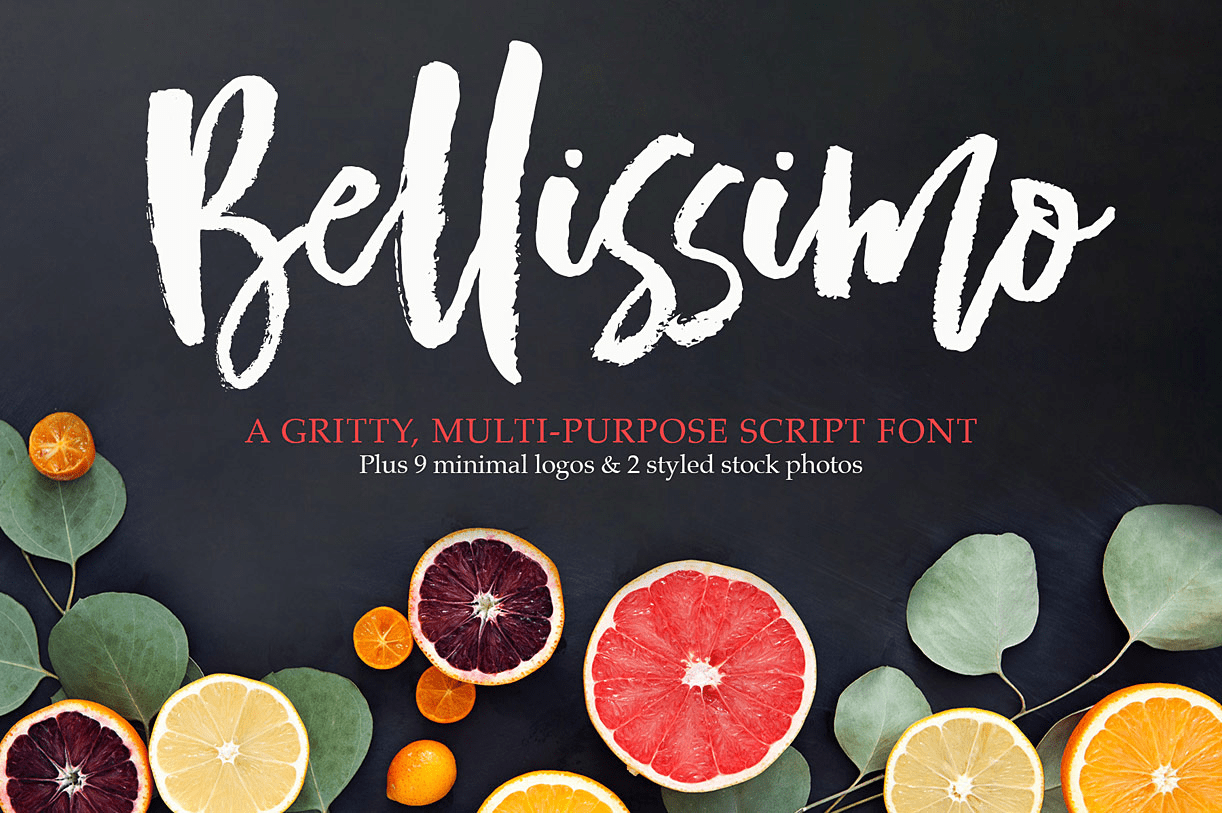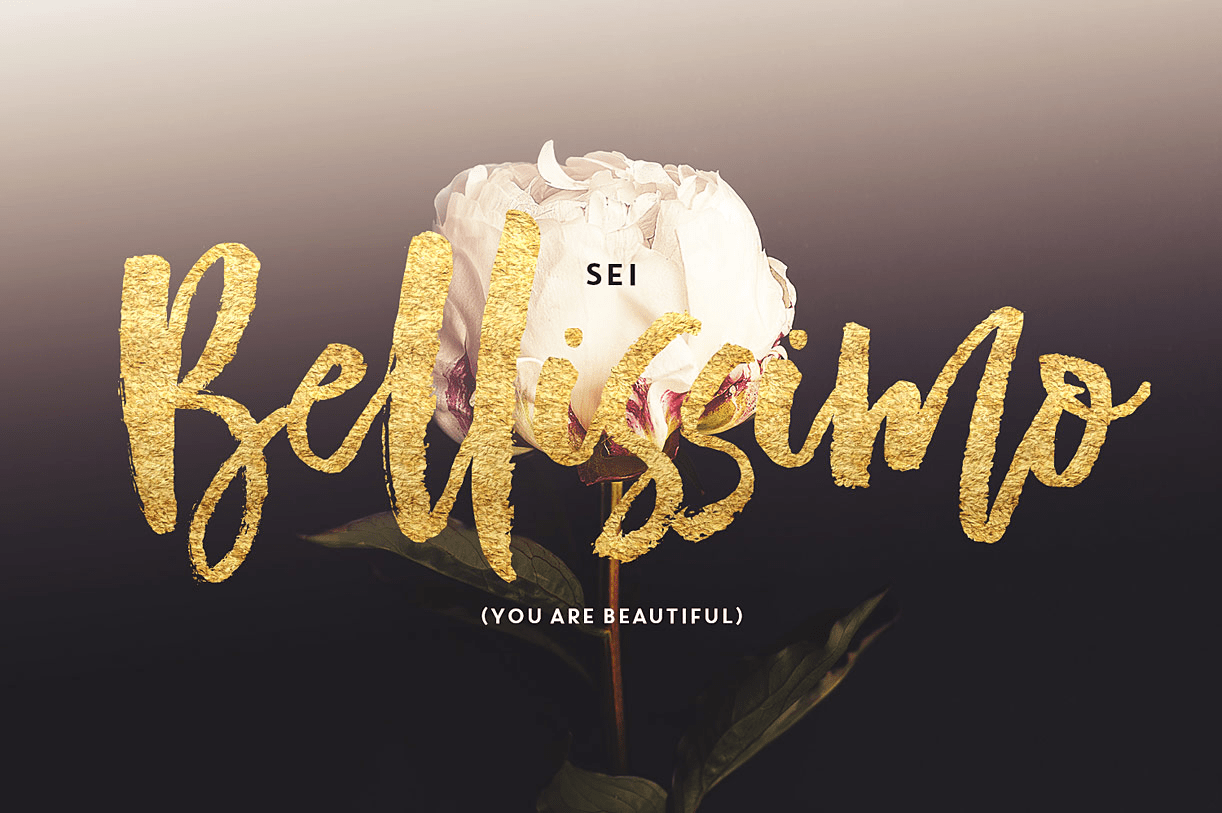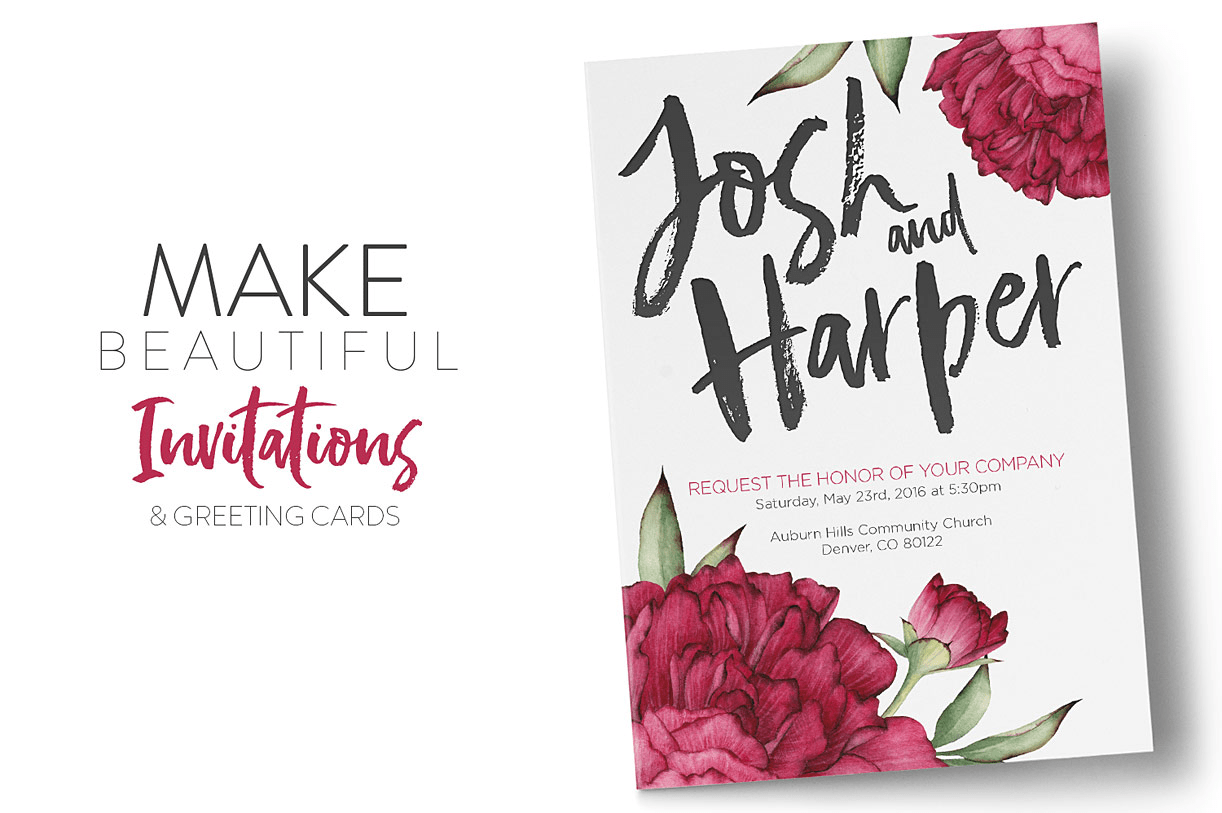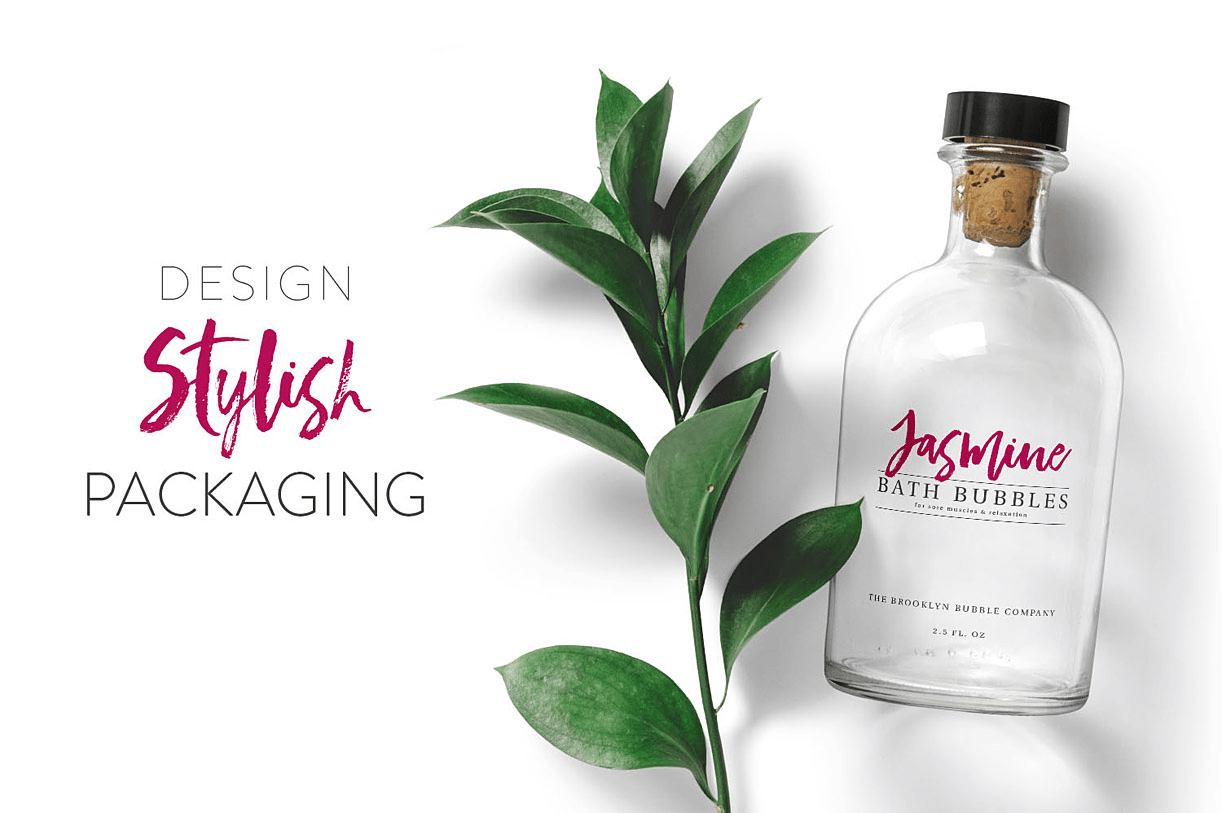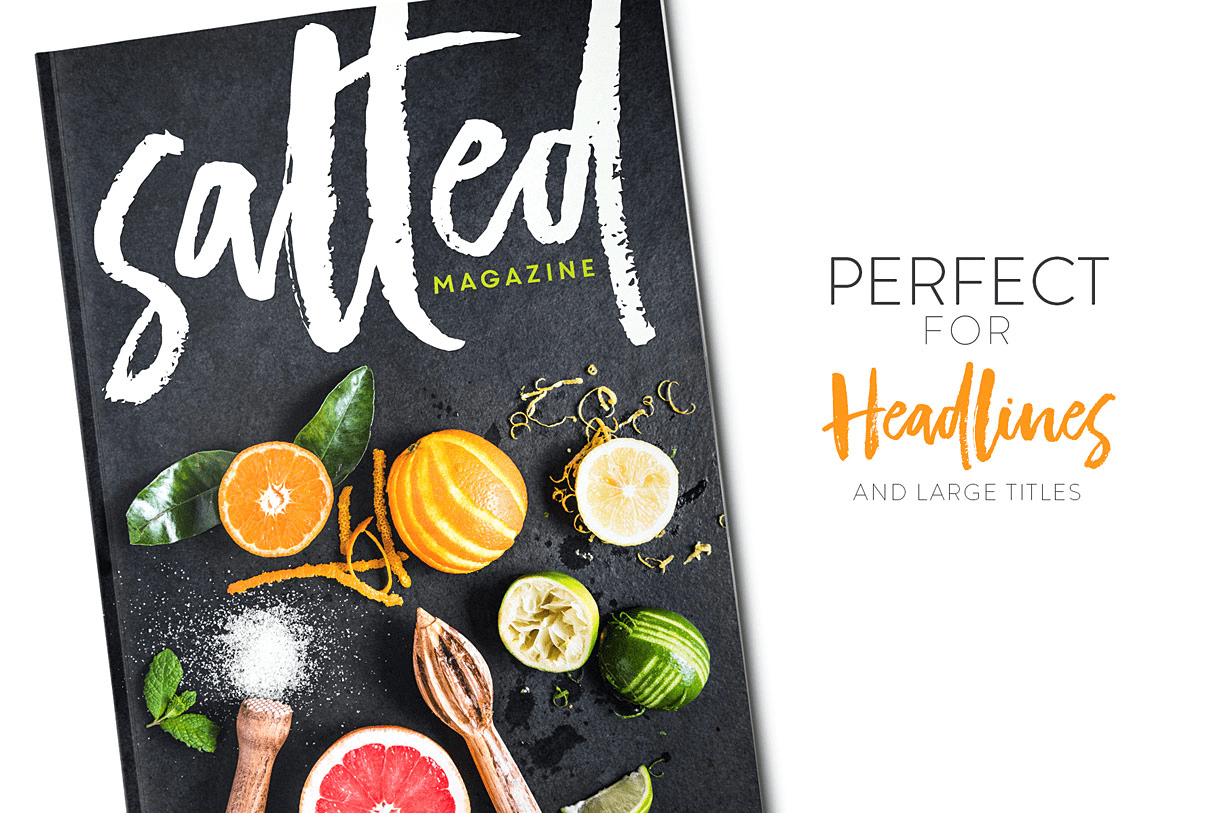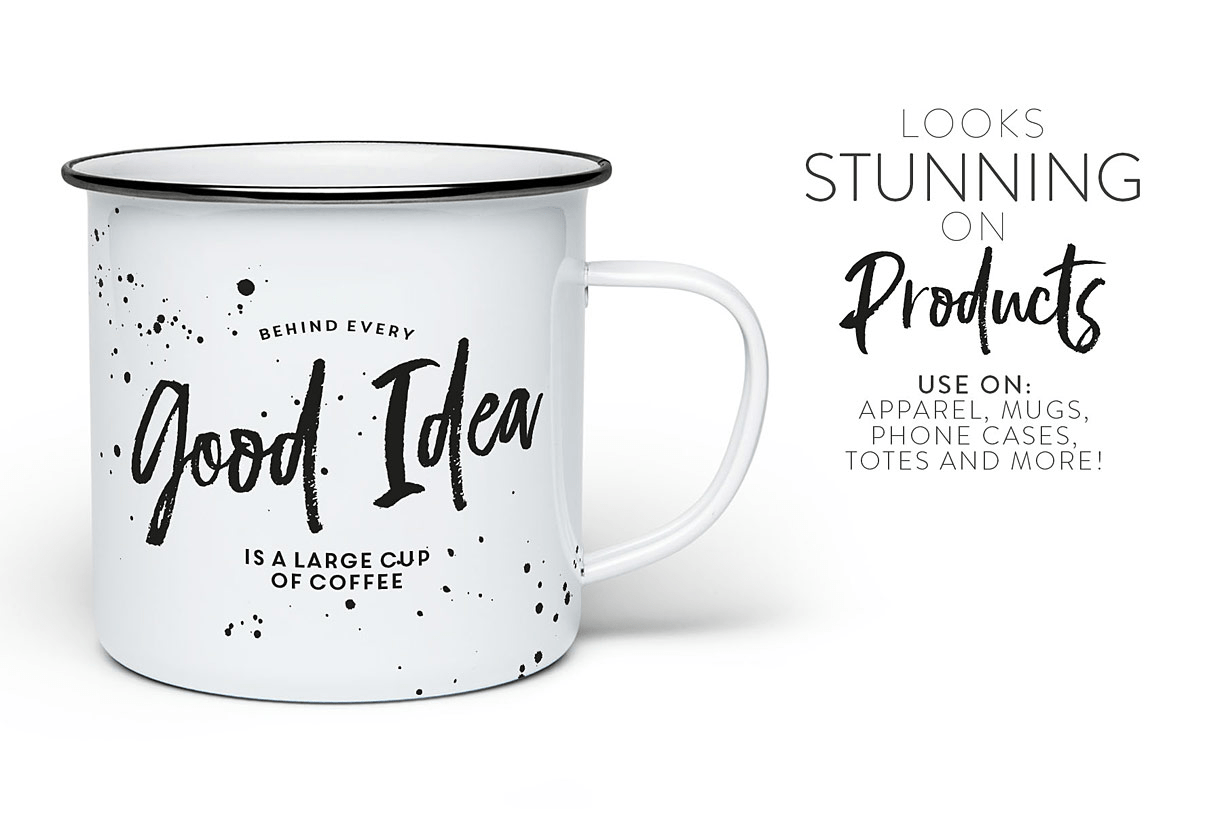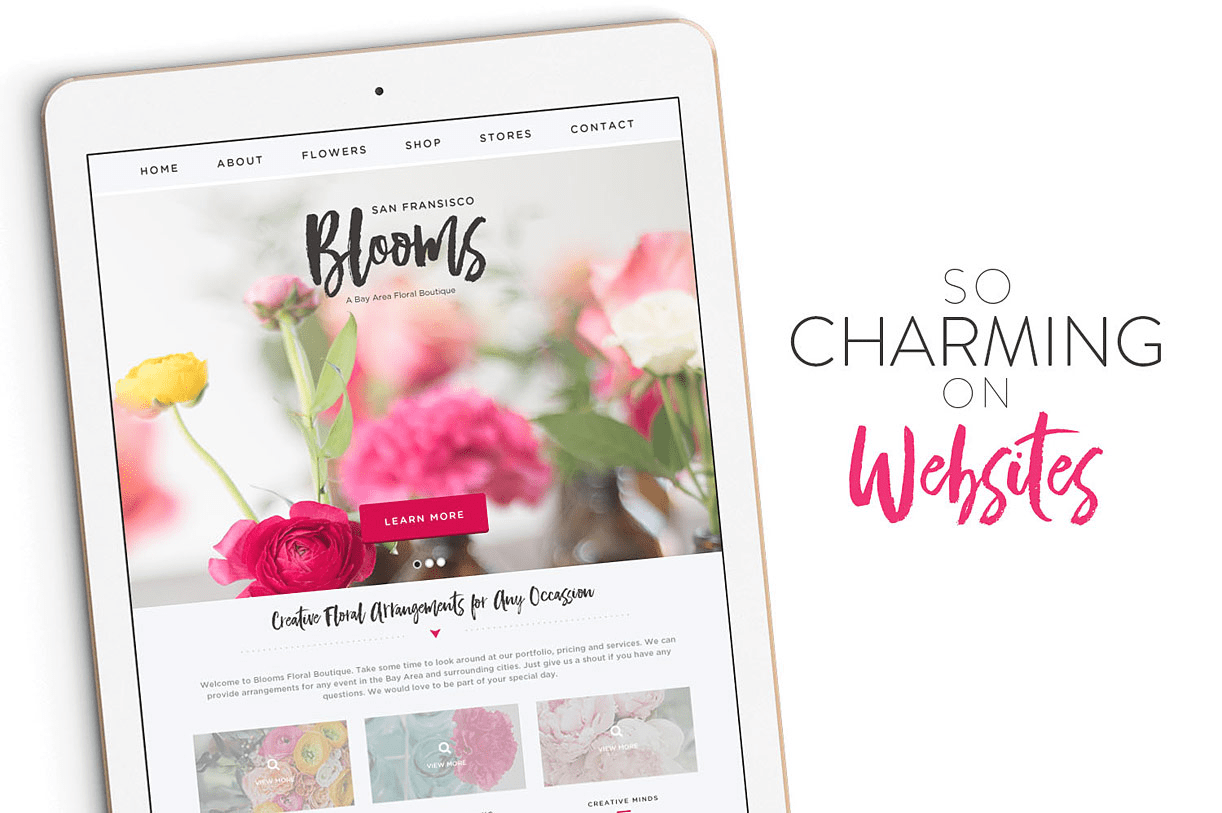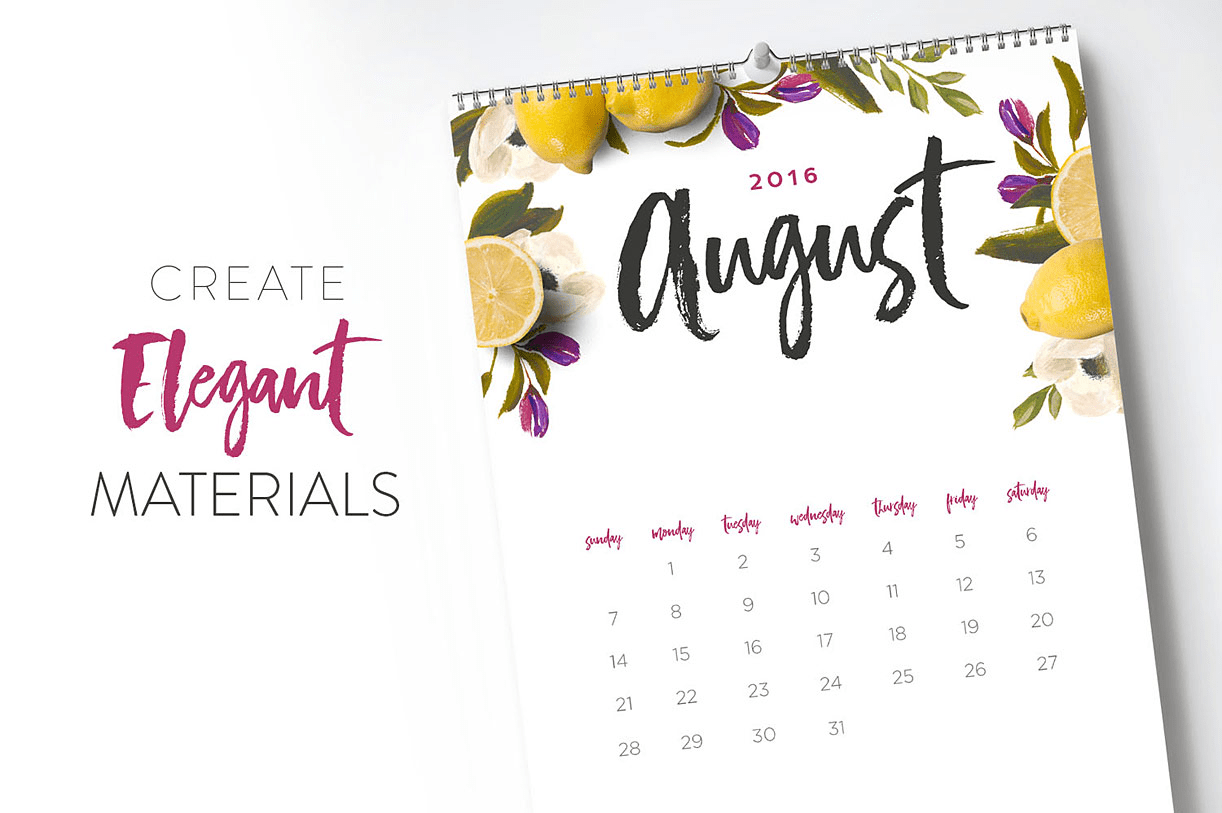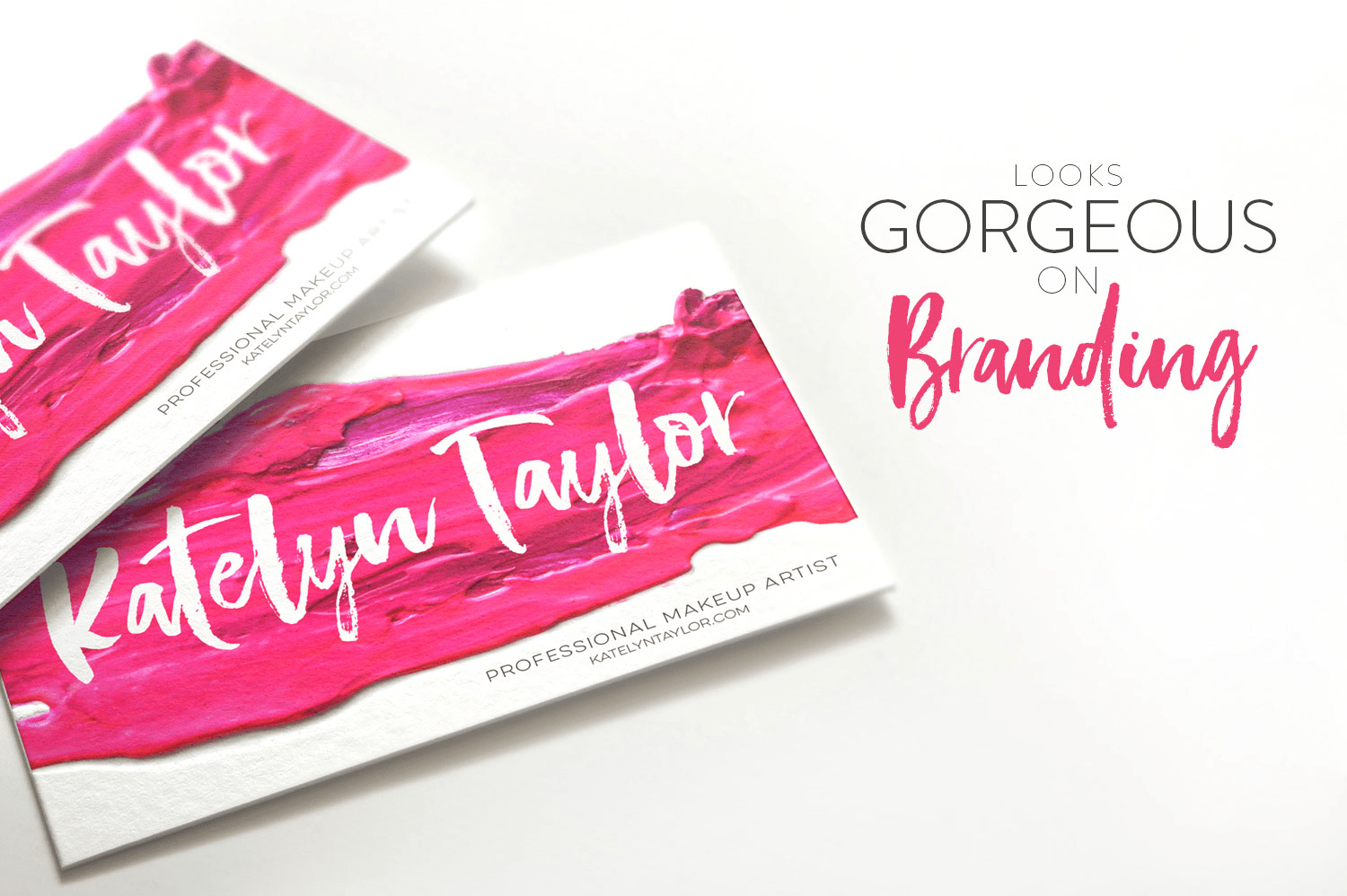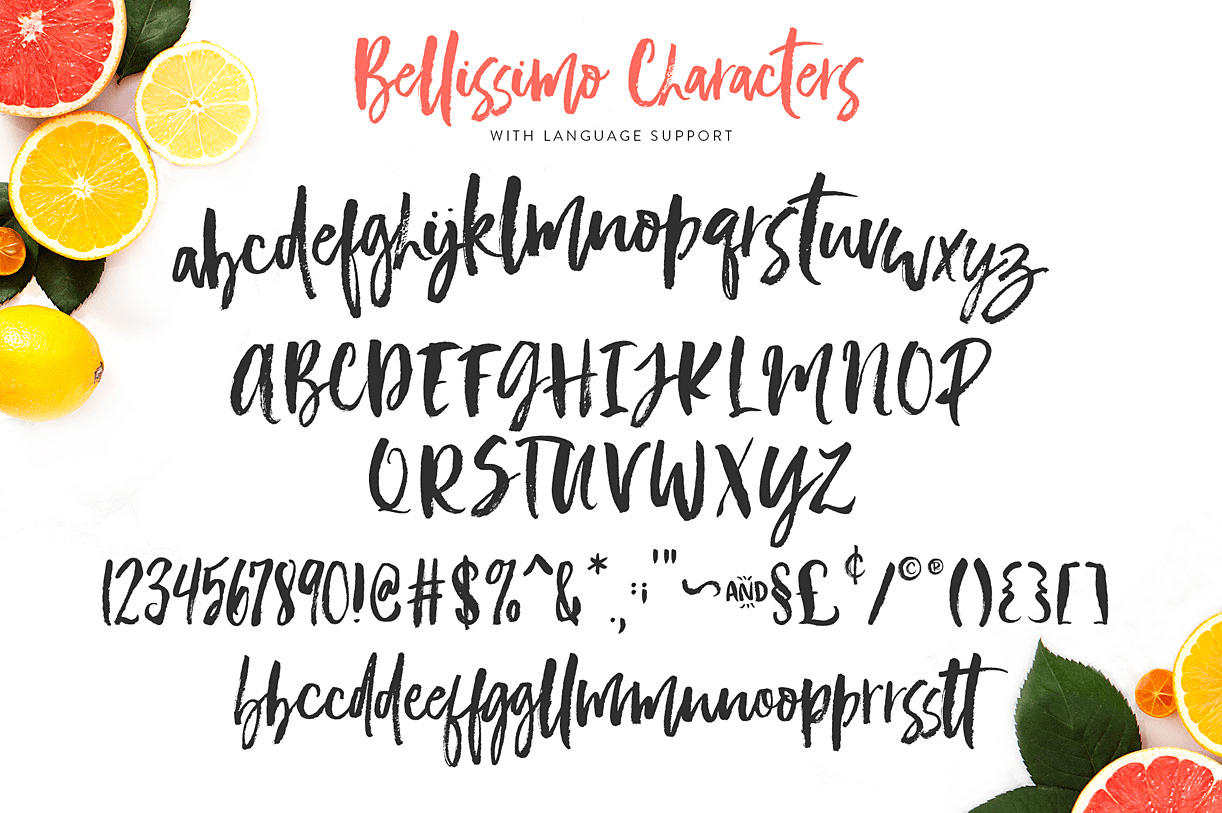
Bellissimo
Font Family by Callie Rian & Co
Say Ciao to Bellissimo! A trendy, hand-brushed font, designed with branding in mind. Bellissimo looks gorgeous on logos, websites, invitations, greeting cards, magazines, business cards, packaging and more!